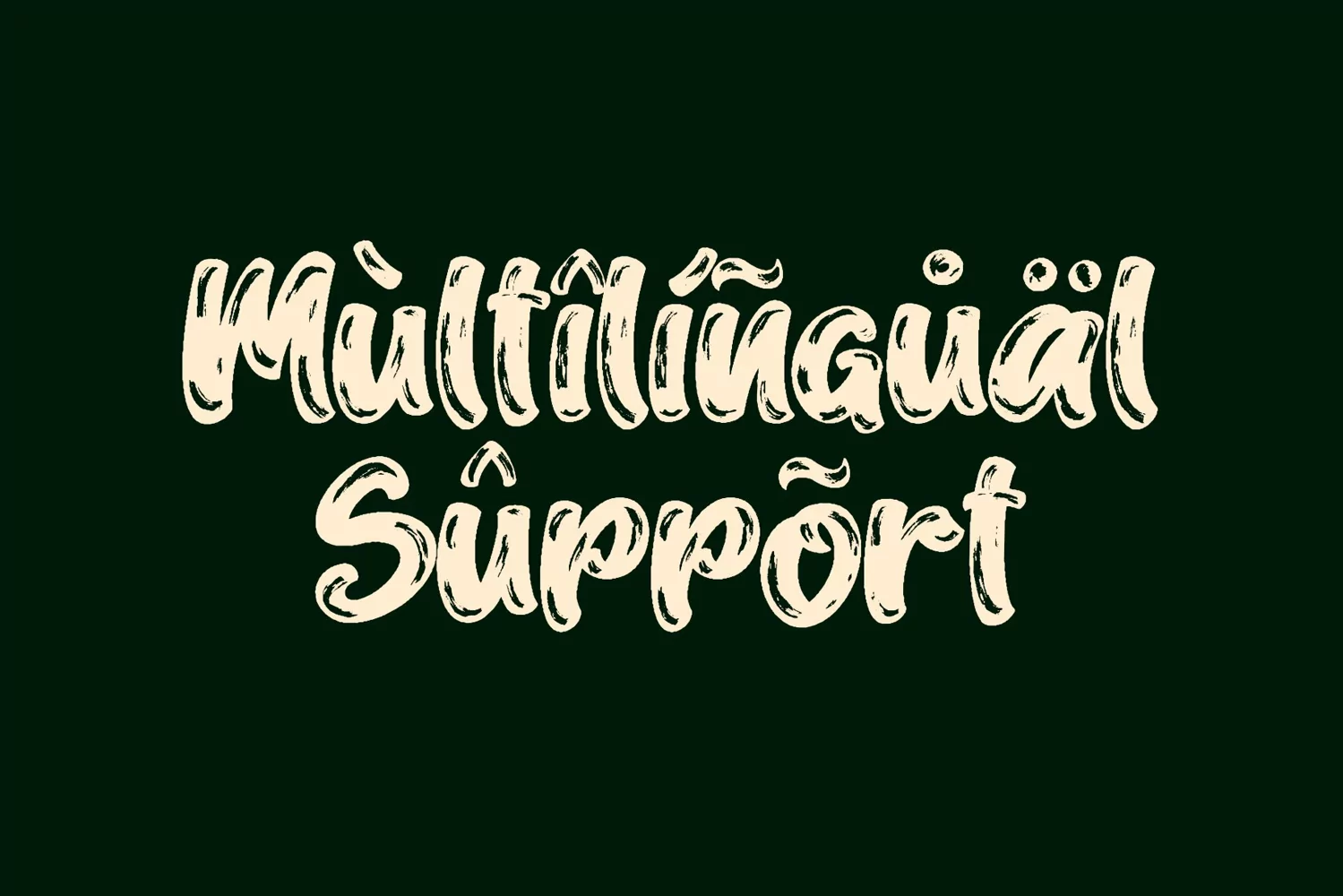
**Mylo Font**
This pair was inspired by music poster design that i saw on some coffee shop, It was crafted by hand specially to add natural handmade feeling in its brand identity than i make it clean with pentool.
Mylo font had 182 character set included
Mylo Font is very good looking in logo, labels, t-shirt prints, product packaging, invitations, advertising and others.